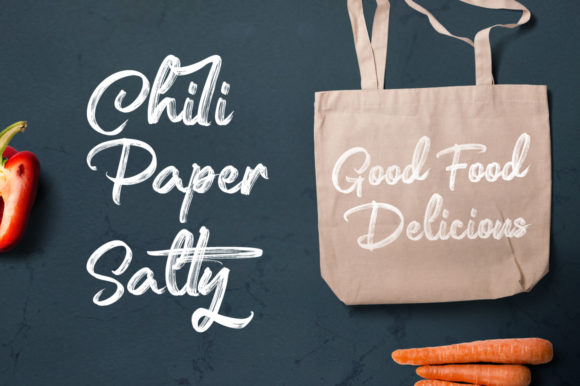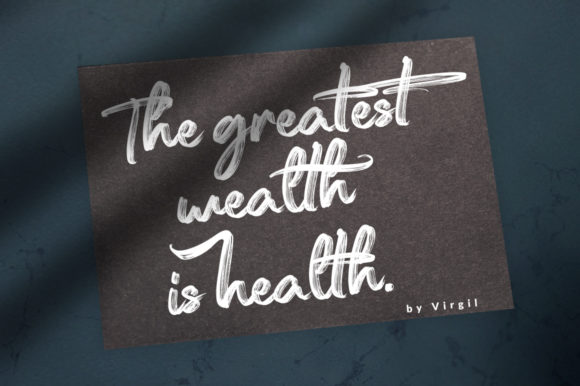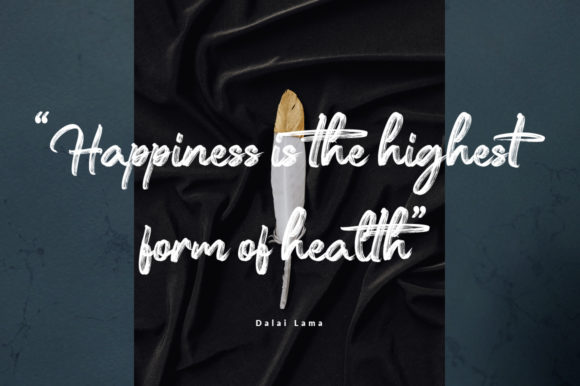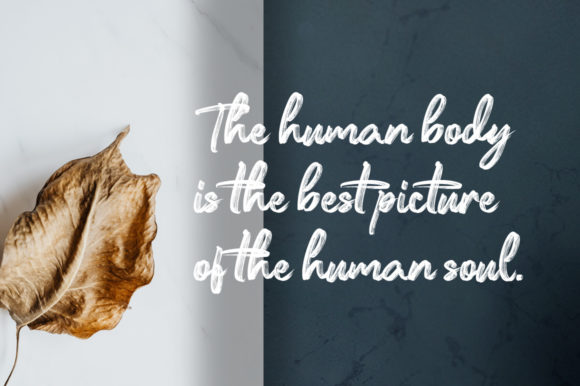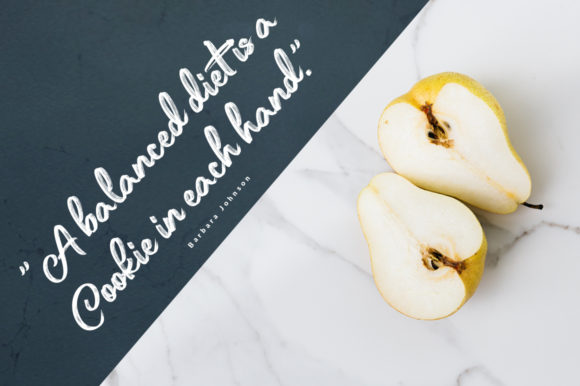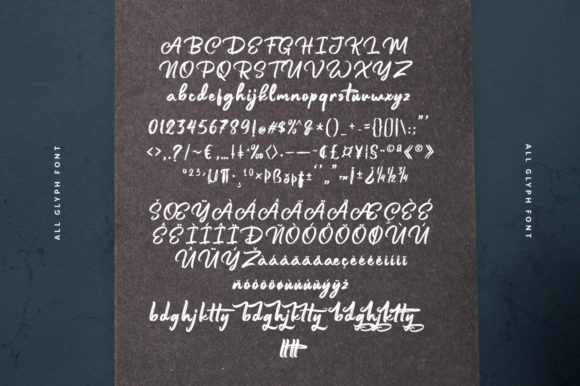
The Designer’s Delight: A Deep Dive into Festany Font
I’ll never forget the time I was working on a branding project for a cozy little bakery, and I just couldn’t find the perfect font to capture their warm and inviting personality. The client wanted something that felt handmade, yet sophisticated enough to stand out on their packaging and marketing materials. That’s when I stumbled upon Festany Font, and it was love at first sight! 💕
Festany is a sweet and friendly handwritten font that has become a staple in my design toolkit. Its natural and unique style makes it incredibly fitting to a large pool of designs. The only limit is your imagination! In this article, I’ll share my honest review of Festany, a practical guide on how to use it, and some helpful tips and tricks to get the most out of this beautiful font.
The Good: ✨
- Unique and charming handwritten style that’s perfect for branding, packaging, and marketing materials ✅
- PUA encoded, making it easy to access all glyphs and swashes with ease! 🔓
- Natural and effortless feel that adds a personal touch to any design 📝
- Works beautifully with a variety of design styles, from rustic to modern 🌈
The Not-So-Good: 🤔
- Some users may find the font a bit too ornate or playful for certain projects ⚠️
- May not be the best fit for very long blocks of text or body copy 📄
The Story Behind Festany: Designer Inspiration
Festany was created with the intention of capturing the warmth and personality of handwritten fonts. The designer wanted to create a font that felt approachable and friendly, yet sophisticated enough to stand out in a variety of design contexts. With its unique blend of elegance and playfulness, Festany is sure to become a favorite among designers and crafters alike!
| What is PUA encoding, and how does it benefit Festany users? | PUA (Private Use Area) encoding allows users to access a range of glyphs and swashes that are not available in standard fonts. This means that Festany users can easily access a variety of special characters and ornaments to add a personal touch to their designs. |
| Is Festany suitable for body copy or long blocks of text? | While Festany is a beautiful font, it may not be the best fit for very long blocks of text or body copy. It’s best used for headlines, titles, and short paragraphs where its unique style can shine. |